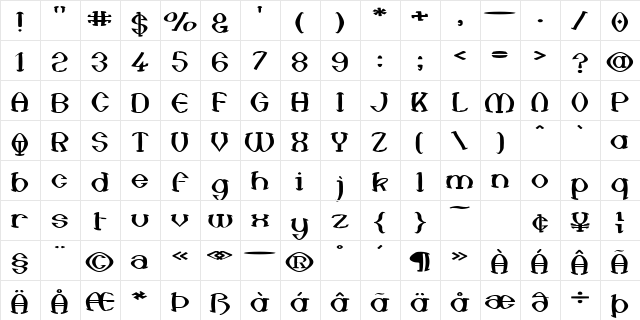
Anal Satisfaction Regular
| Designer | Graham Meade |
Design Context for Anal Satisfaction Typeface
Anal Satisfaction is a composed and adaptable typeface that performs quietly and consistently across a wide range of design contexts.